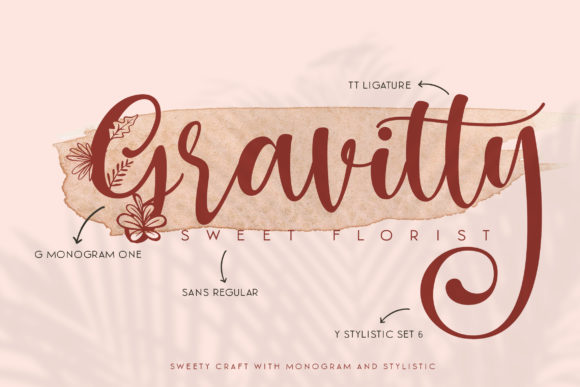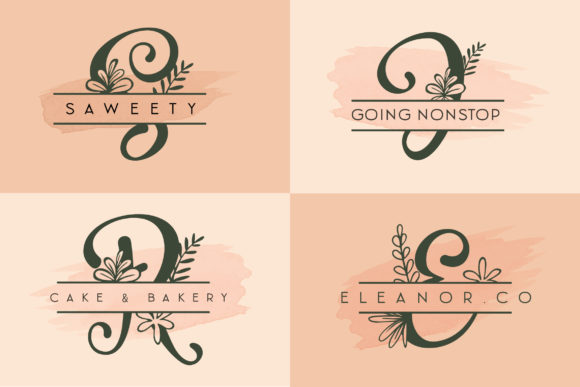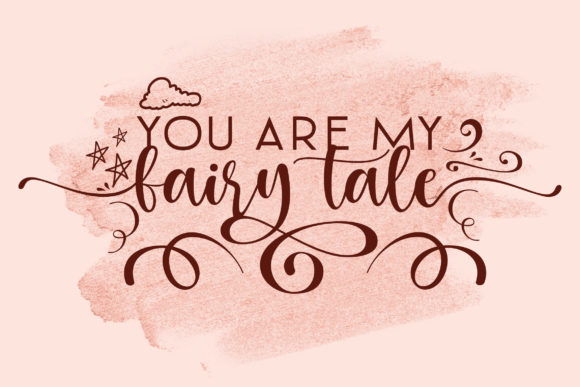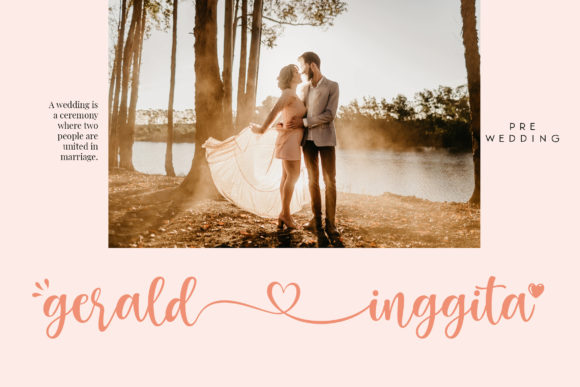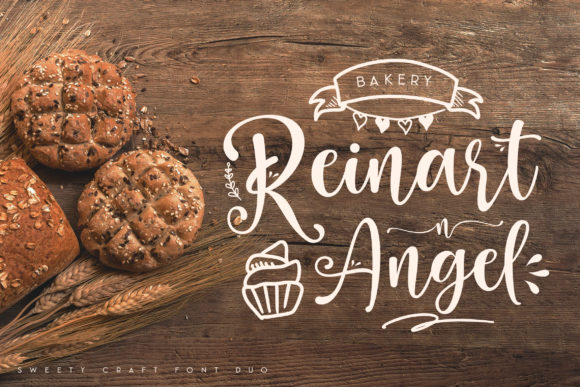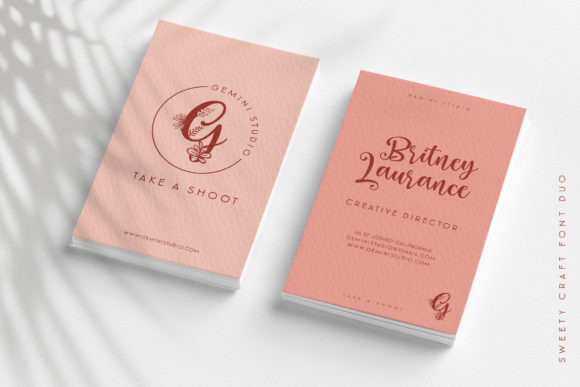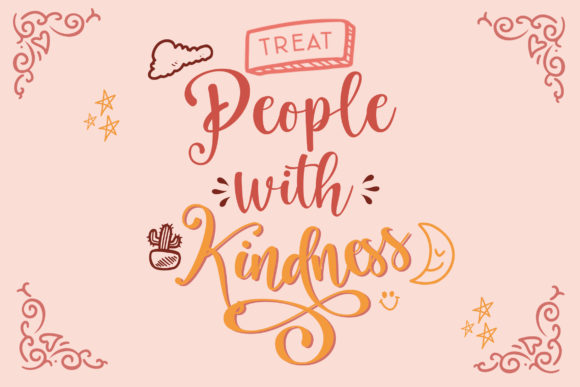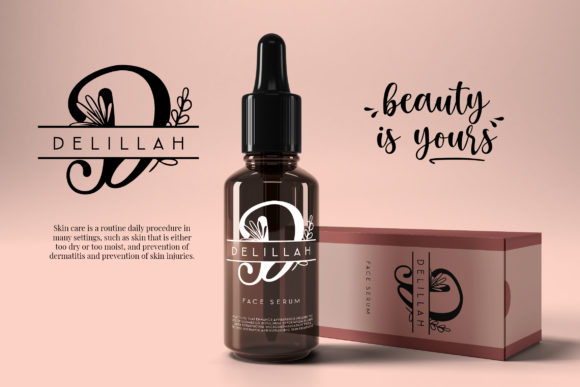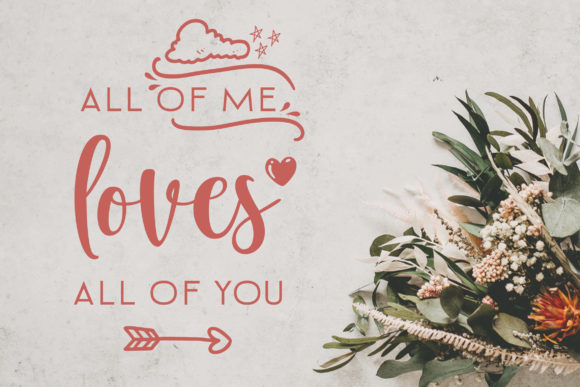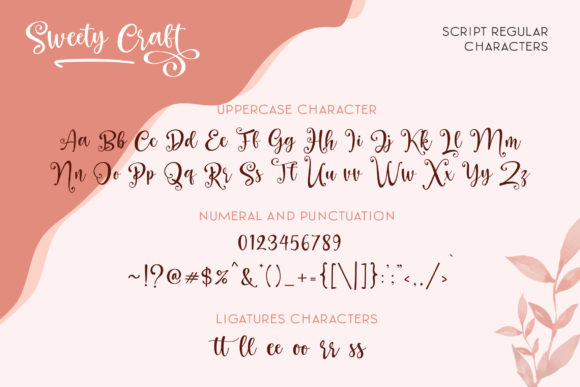
Sweety Craft Font
About Sweety Craft Font
Sweety Craft is a charming duo font (sans serif and script). Incredibly versatile, this font fits a wide pool of designs, elevating them to the highest levels. Add this font to your favorite creative ideas and notice how it makes them come alive!